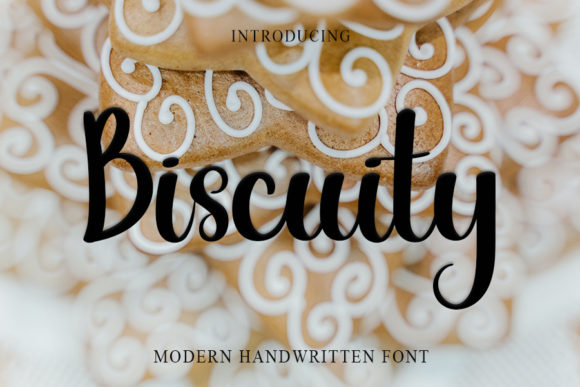
The Biscuity Font: A Delicious Addition to Your Design Toolkit
I’ll never forget the design project that led me to fall in love with the Biscuity font. I was working on a branding project for a trendy bakery, and I needed a font that would capture the warmth and playfulness of their brand. After scouring the internet for hours, I stumbled upon Biscuity, and it was like the icing on the cake (or should I say, the sprinkles on the cupcakes?). Its casual, handwritten charm instantly resonated with me, and I knew I had found the perfect fit.
An Honest Review: What I Love (and What to Watch Out For)
So, what makes Biscuity so special? Here are a few things that I absolutely adore:
- ✨ Classy calligraphic influences: Biscuity has a sophisticated, elegant feel that elevates any design project.
- ✅ Contemporary and fresh: Despite its classic influences, Biscuity feels modern and on-trend, making it perfect for projects that need a bit of flair.
- 💕 Emotional connection: The font’s warm, handwritten quality creates an instant emotional connection with readers, making it ideal for branding and marketing projects.
Of course, no font is perfect, and Biscuity has a few quirks to keep in mind:
- 🤔 Limited use in formal contexts: While Biscuity is amazing for creative projects, it might not be the best fit for more formal or corporate designs.
- ⚠️ Some letter combinations may require manual kerning: As with any font, you might need to adjust the kerning for certain letter combinations to ensure optimal readability.
The Story Behind Biscuity: Designer Inspiration
While the true story behind Biscuity remains a mystery, let’s imagine that it was created by a talented type designer named Emma. Emma, an avid baker and design enthusiast, wanted to craft a font that captured the warmth and playfulness of her favorite bakery. With Biscuity, Emma aimed to bring a touch of elegance and whimsy to the world of typography.
| What makes Biscuity unique? | Biscuity’s unique blend of classy calligraphic influences and contemporary freshness makes it stand out from other fonts. |
| Is Biscuity suitable for body text? | While Biscuity is primarily designed for headings and titles, it can be used for short blocks of body text. However, for longer texts, a more traditional font might be more readable. |